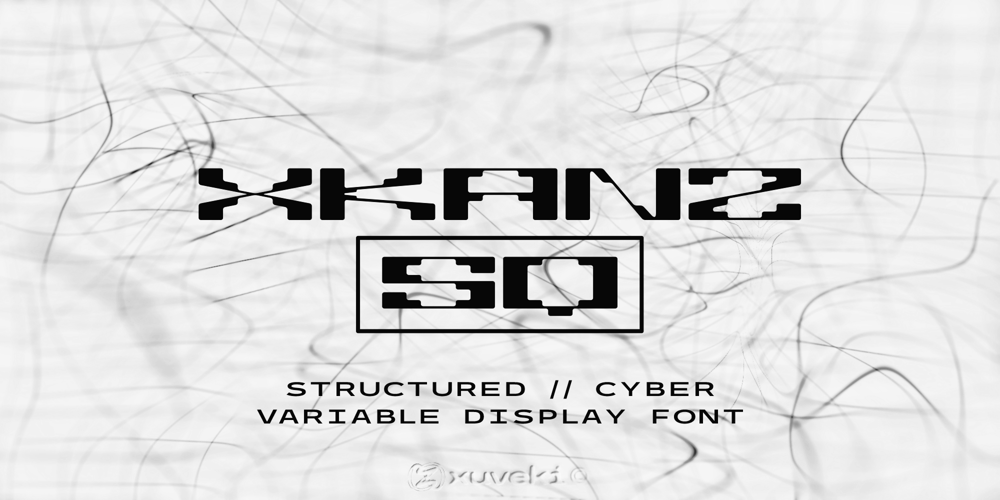
Xkans SQ Font Family was designed by Abe Zeinali and published by Xuveki. Xkans SQ contains 3 styles and family package options. XKANZ SQ is a blockier, more rigid variant of a previous font: XKANZ. It’s a futuristic, robotic, variable display font geared towards cyberpunk poster text, cover text, and futuristic UI. It can easily shine as both as header and body.Wide glyphs, high weight and corner contrast, and “connectors” that bridge the gap between the stems, it’s this mix of elements that give XKANZ its unique look.The family package (same price as any individual style) includes two static styles, regular and oblique, and a variable font file with a interpolatable 0-12 degree slant axis.Each style includes extensive multilingual support covering most latin characters. 4 stylistic sets that include alternates for the D, I, R, and E glyphs, along with symbol/punctuation alternates such as the parenthesis, brackets, and more.Possible updates include condensed versions. The updates will be free and available to everyone who has already purchases XKANZ SQ.All questions, requests, or inquiries can be sent to abe.xuveki@gmail.com or DM’d to Xuveki on Instagram (https://www.instagram.com/xuveki)